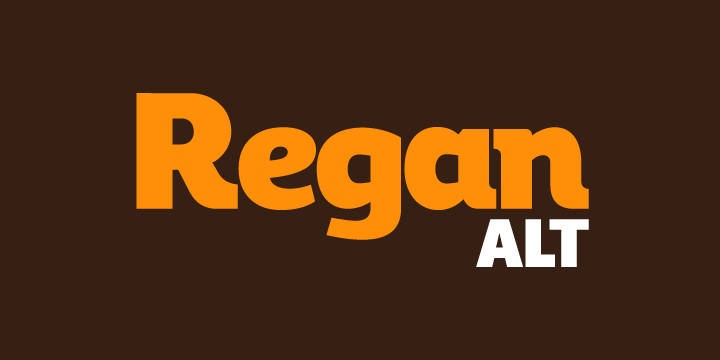
Regan Alt is a typeface created by Jonathan Hill and published by The Northern Block. This font has carefully cut from the pemplate on Regan and Regan Slab. It is perfectly for advertising, fashion, retail and the web.